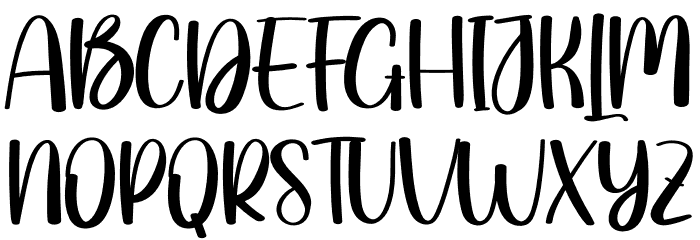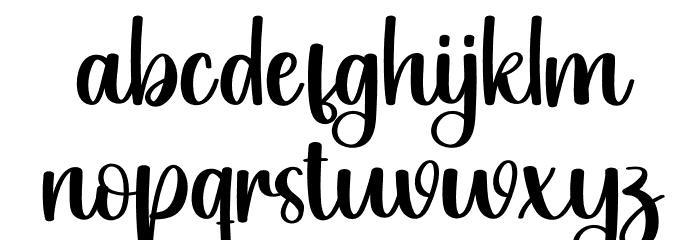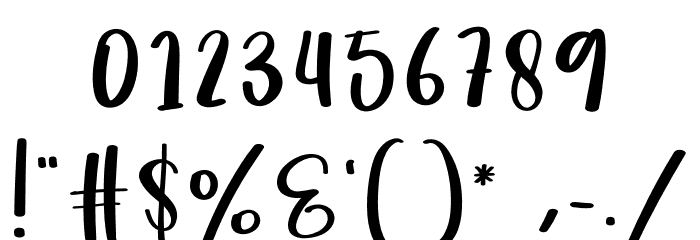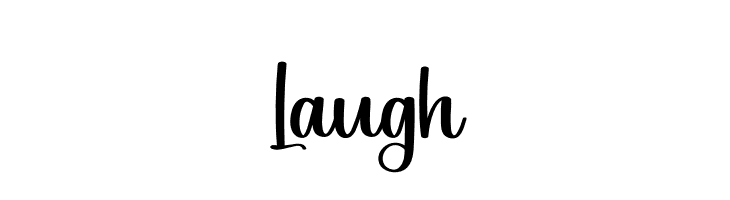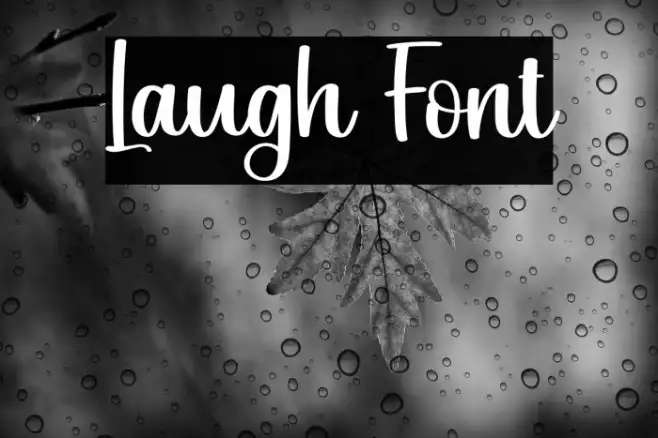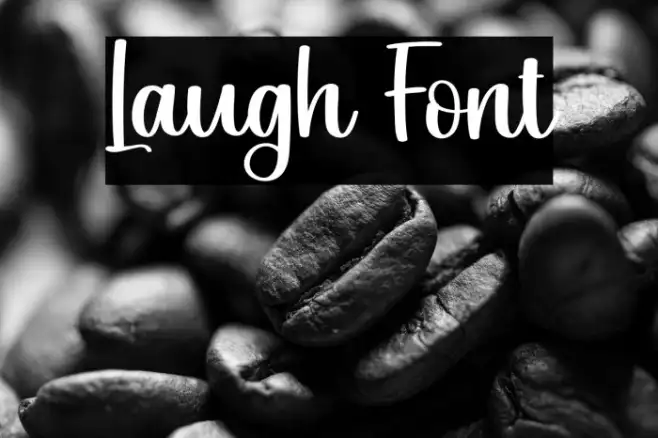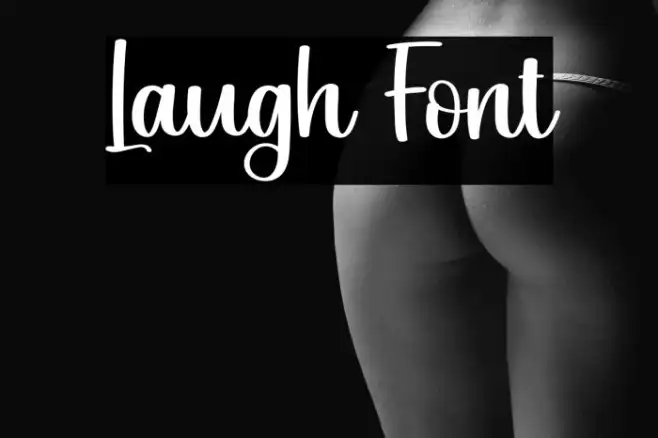
Laugh Font
A playful, handwritten script font with a casual and friendly appearance. The letters are bold with a slight slant, featuring a mix of thick and thin strokes.
Playful handwritten script font.
- Proposed Projects: Greeting cards, invitations, playful branding.
- Category: Handwritten
- Overall Style: Casual and friendly
- Use Case: Logos, headlines, decorative text.